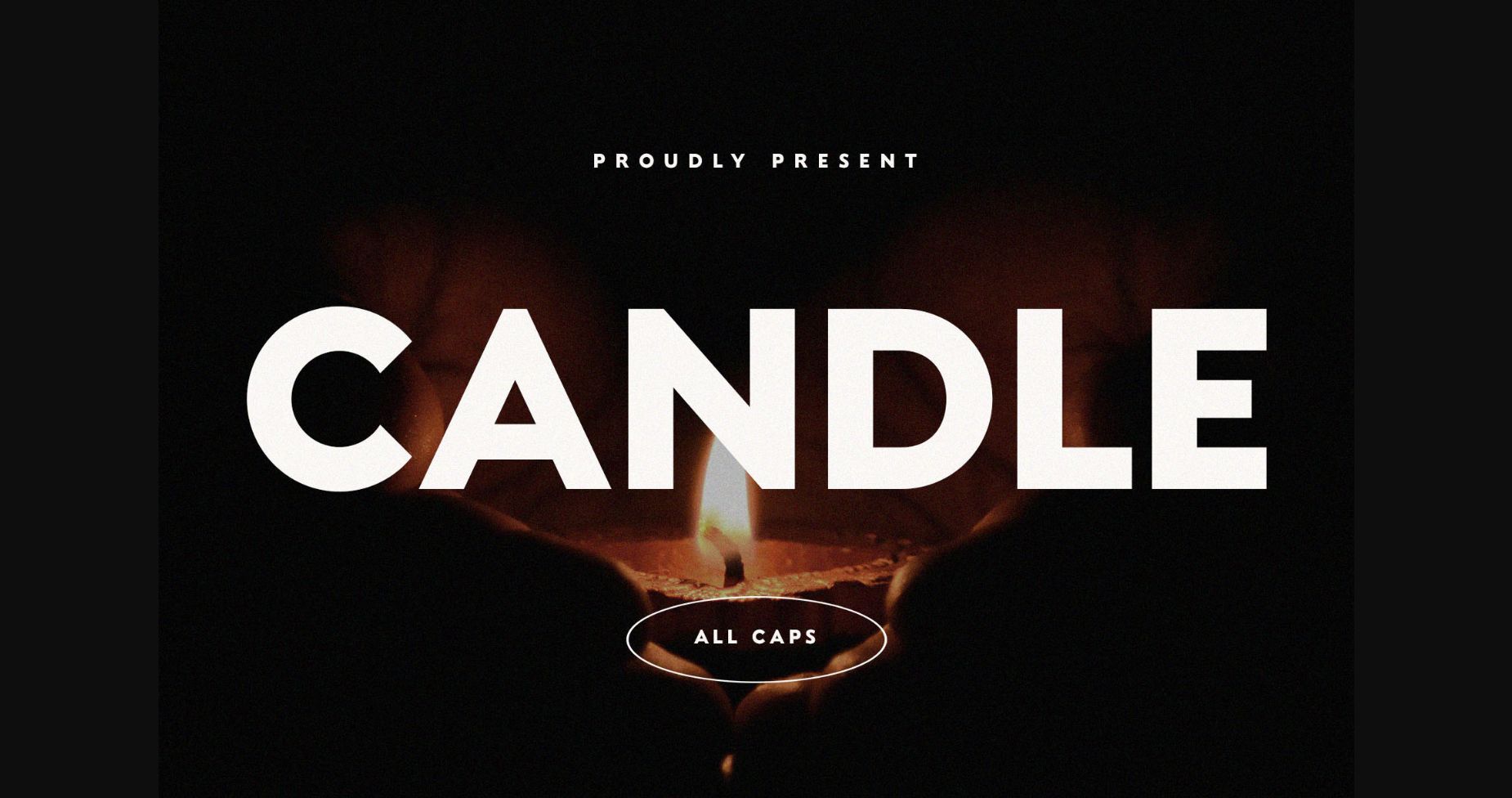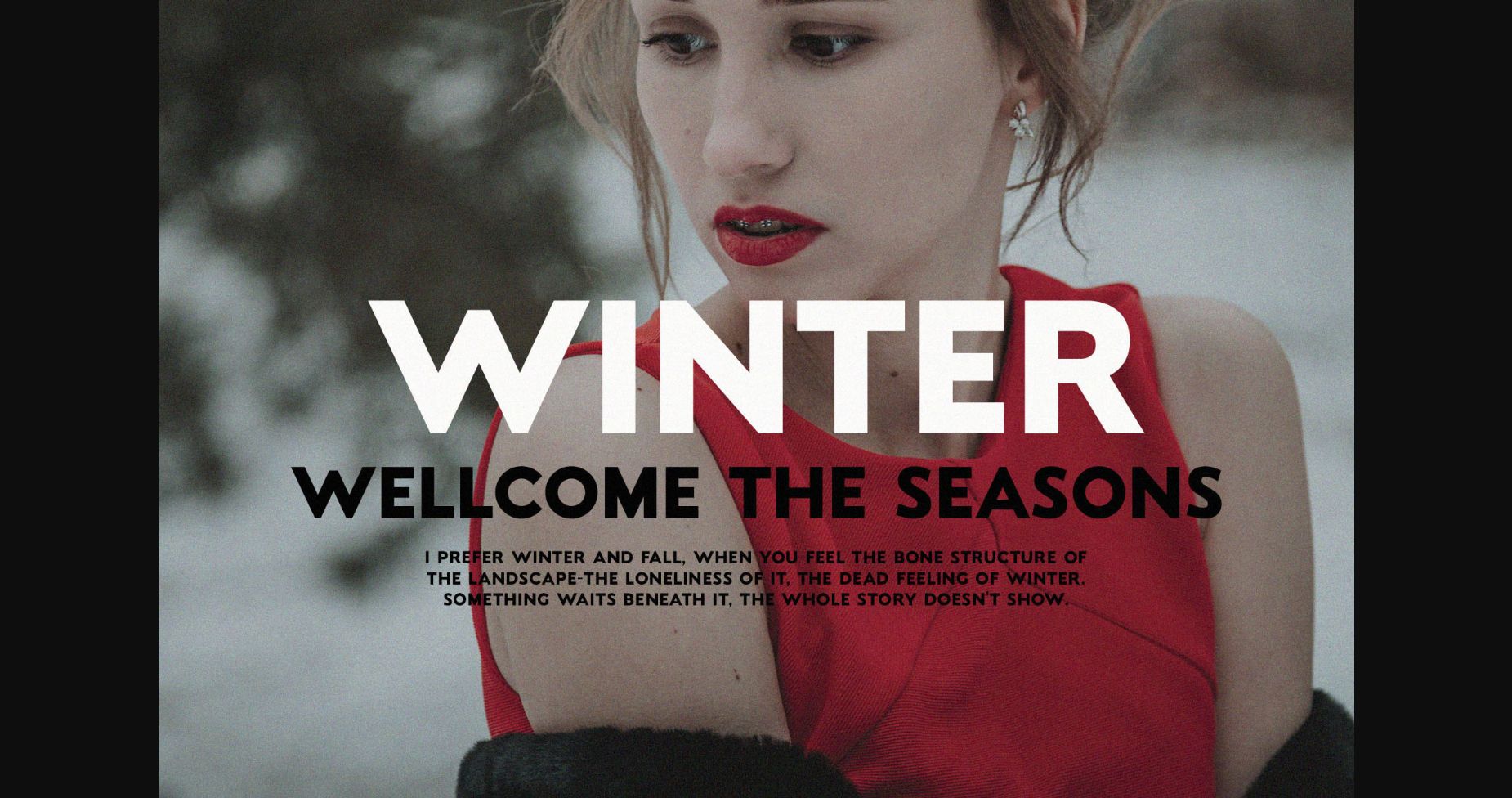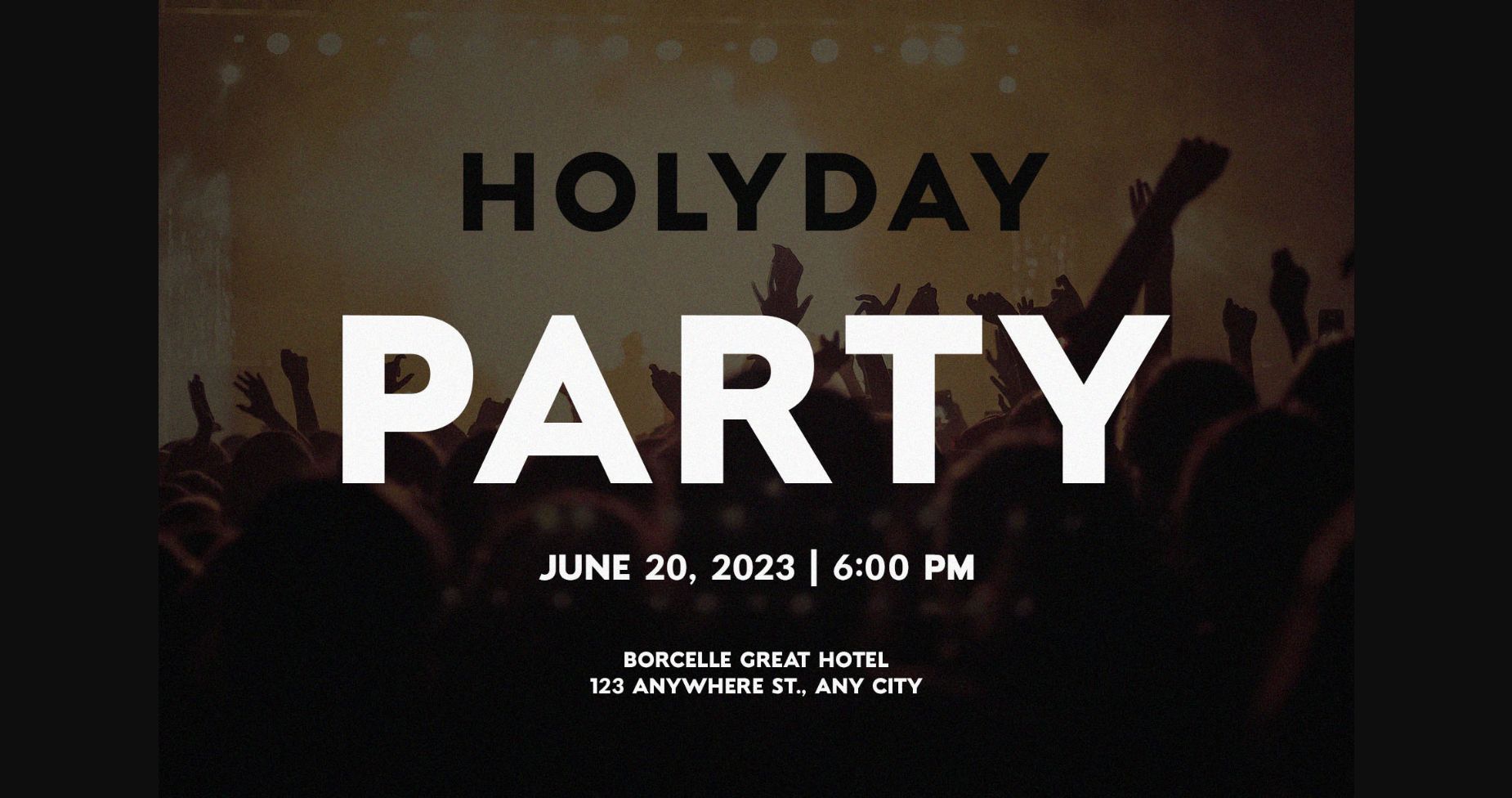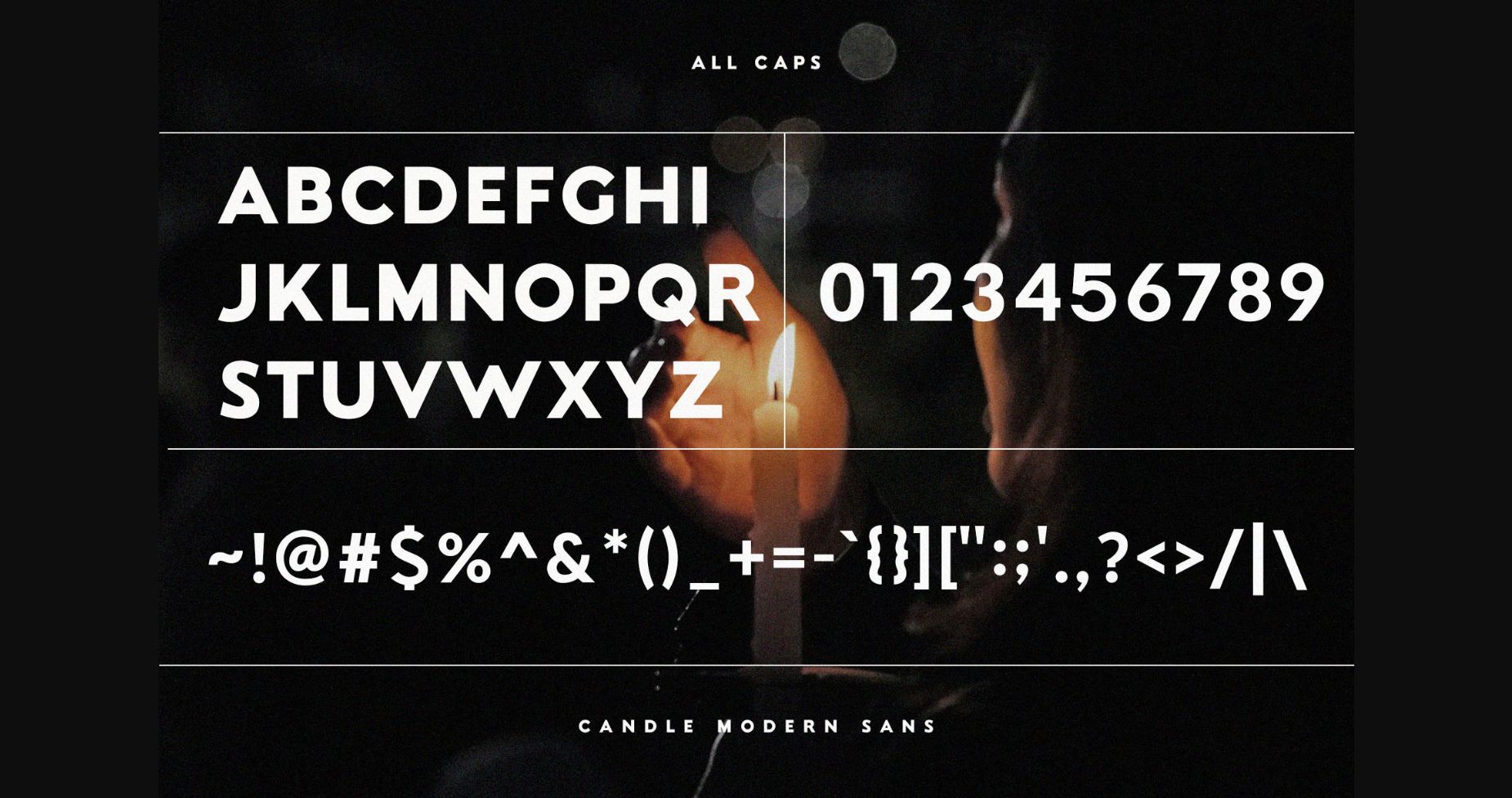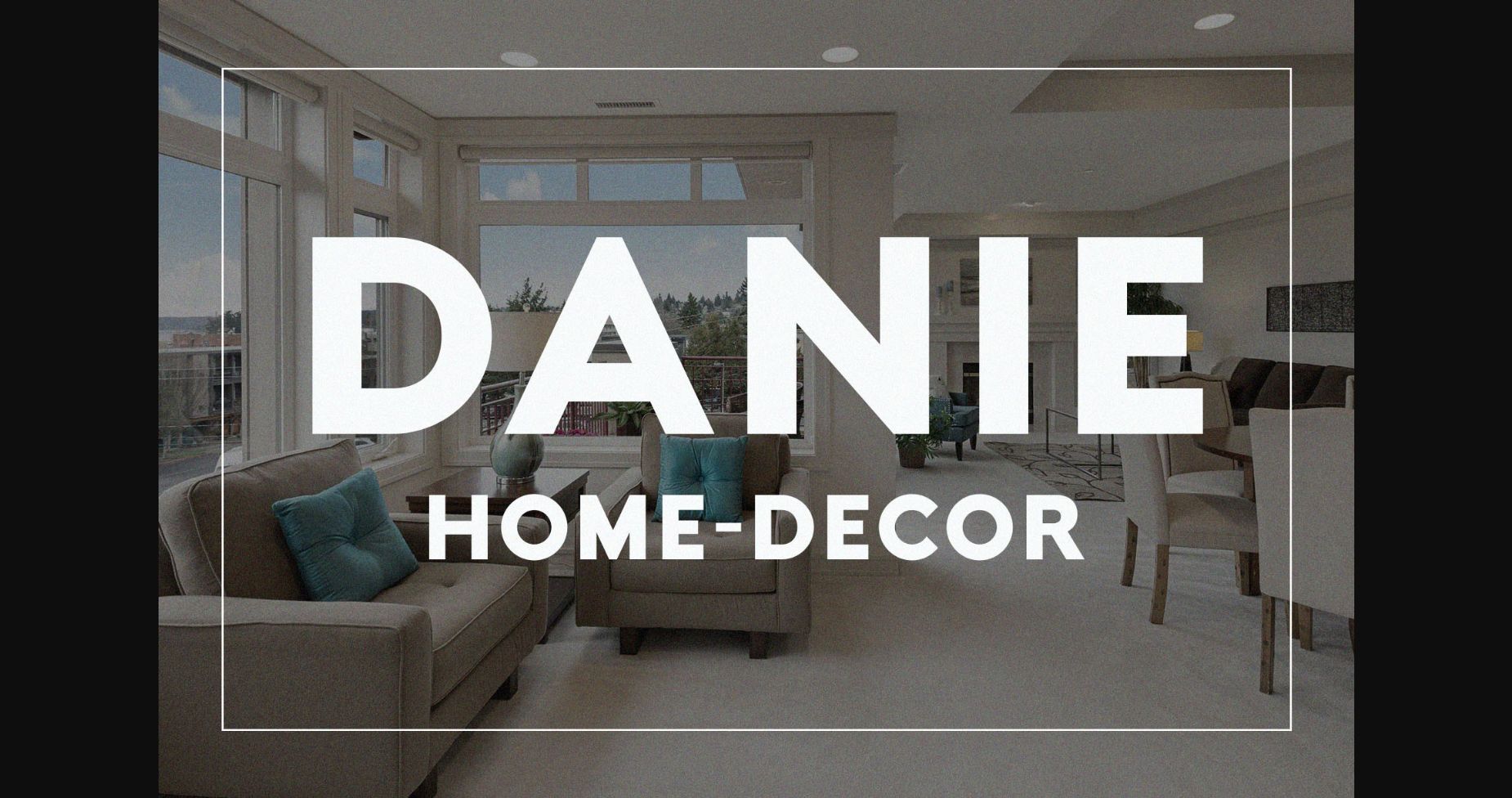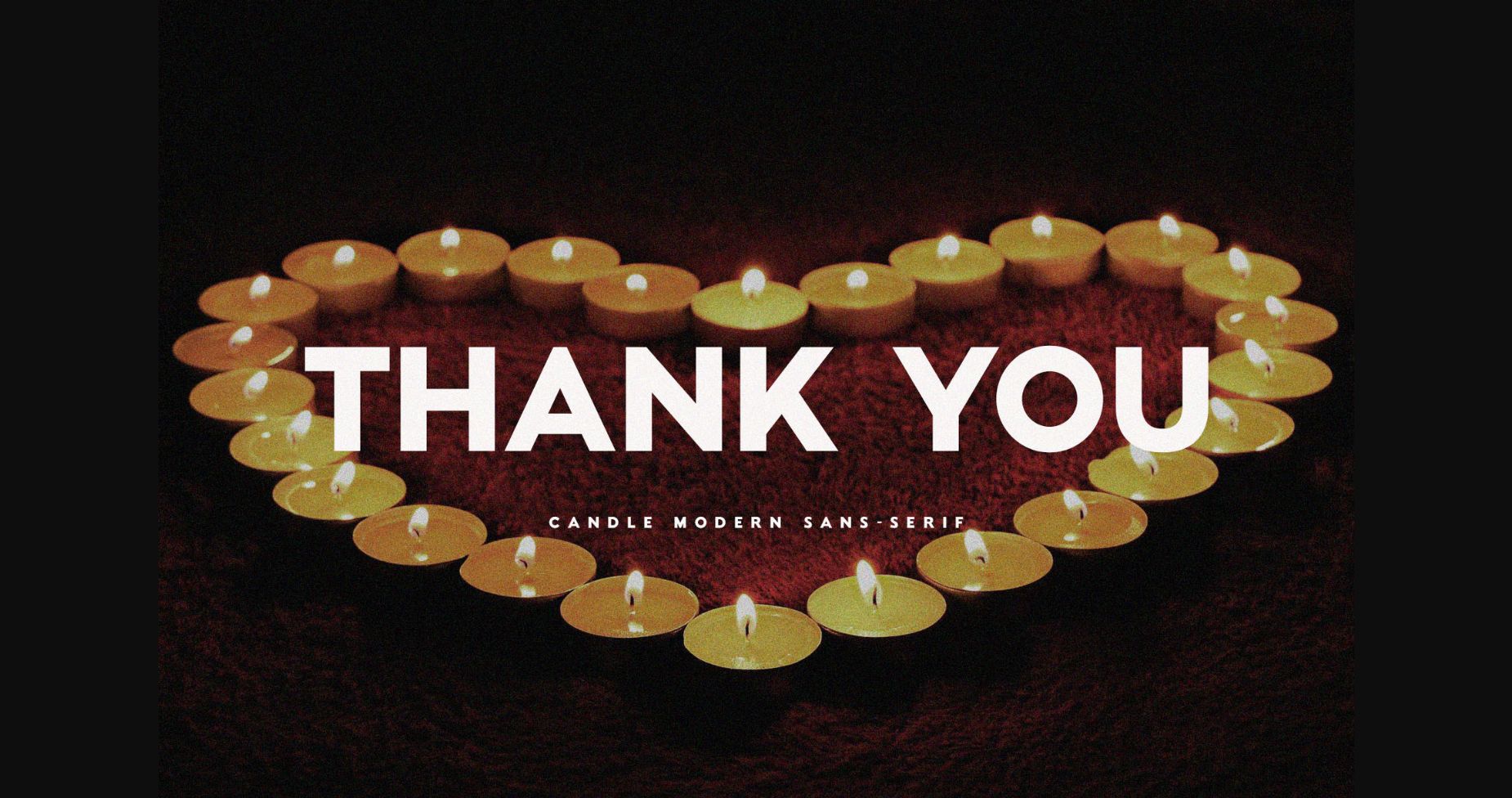
HomeSans Serif FontsCandle Font Sans Serif Fonts Candle Font FacebookXPinterestWhatsApp 1 of 8 ... Candle Font Poster 2... Candle Font Poster 3... Candle Font Poster 4... Candle Font Poster 5... Candle Font Poster 6... Candle Font Poster 7... Candle Font Poster 8... About Candle Font Candle is a classy and modern sans serif font perfect for websites, logos, magazines, social media posts, and many more. If you need a touch of elegance for your designs, this font is made for you! DOWNLOAD NOW People also explored Britney Hills Font I Love You All Font Pumpkin Font Household Font Xandria Font Signatura Font Monogram P | Monofont Caps P Font Creative Balloons Font Gutera Font 413 0 TagsCandleCandle Font Previous articleSayger FontNext articleFougie Font LEAVE A REPLY Cancel reply Comment: Please enter your comment! Name:* Please enter your name here Email:* You have entered an incorrect email address! Please enter your email address here Website: Save my name, email, and website in this browser for the next time I comment. Personal Use Free Histeria Bites Personal Use Free Read more about this font Triangular Curves Personal Use Free Read more about this font Adelfa Personal Use Free Read more about this font Zalitta Personal Use Free Read more about this font BLOG Using Fonts in Digital Marketing: Tips to Strengthen Your Brand Identity In the realm of digital marketing, every visual element plays a crucial role in shaping a brand's identity, and fonts are no exception. The... Modern Sans-Serif Fonts That Brands Love in 2025 Elegant Wedding Invitation Fonts – Handwritten & Script Fonts Top 10 Handwritten Fonts That Elevate Your Designs